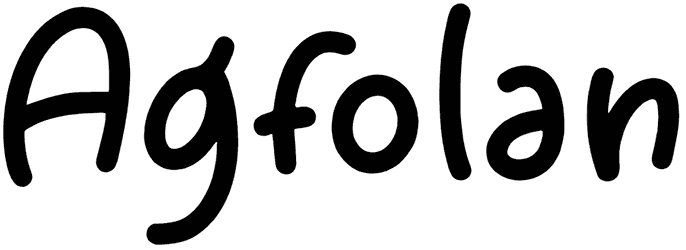
Agfolan Font
If you are in the market for an autumn font to implement school and university projects, Agfolan is a versatile tool without numbers. This handwritten font is designed as if the edges shake with the wind.
This dynamic state, along with the intimate and friendly feeling hidden in this doodle font, can turn it into a bright spot in your resume. So if you still haven’t chosen the right font for school poster design and stationery, give Agfolan a try.